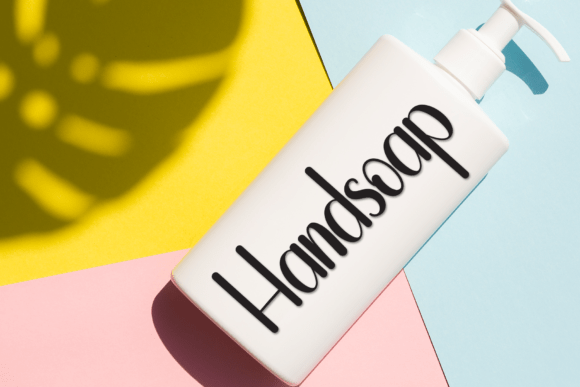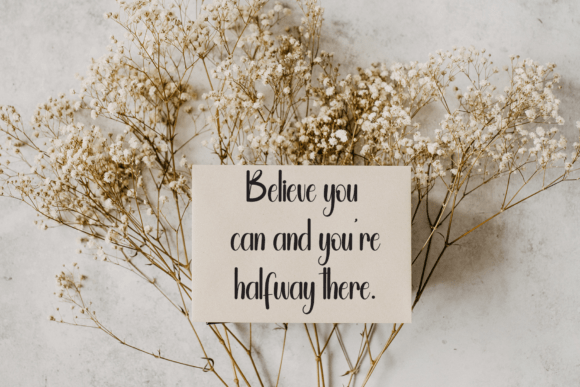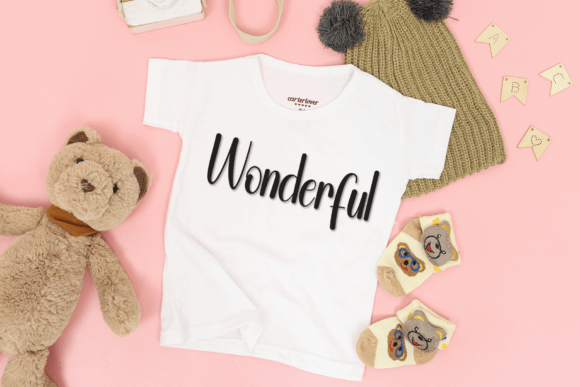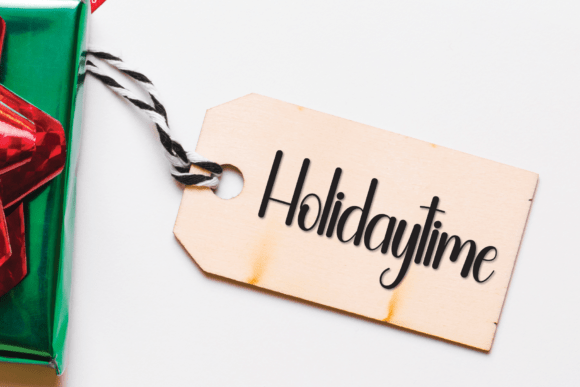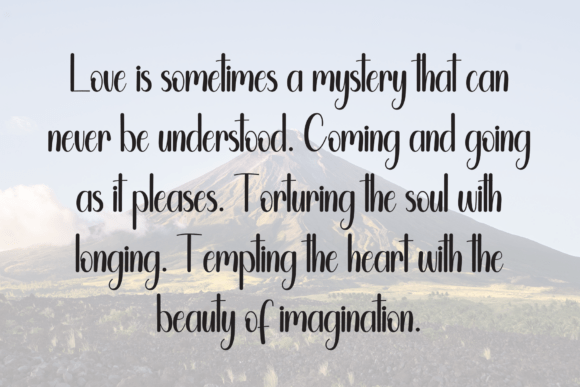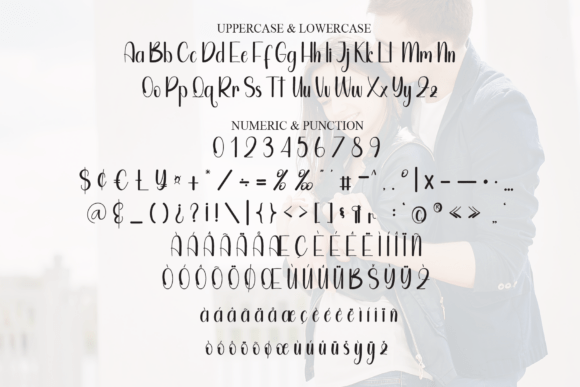
The Perfect Match for Your Next Design Project
You know that moment when you’re brainstorming ideas for a new design project and everything just clicks? The font, the color palette, the layout – it all comes together in perfect harmony. For designers, finding that perfect font can be the key to making a project truly shine. That’s where the Boyfriend Font comes in – a sweet and friendly handwritten font that’s sure to make your designs stand out.
With its natural and unique style, the Boyfriend Font is incredibly versatile and can be used for a wide range of designs, from invitations and greeting cards to social media graphics and blog posts. Its friendly feel makes it perfect for creating a personal and approachable tone, while its unique style ensures that your designs will never feel too generic or cookie-cutter.
Boyfriend Font Key Features
- Size: The font family includes various weights, ranging from Thin to Extra Bold, providing flexibility for different design needs.
- Unique Characteristics: The font features a unique, handwritten style with subtle imperfections, giving it a personal and romantic feel.
- Font Pairing: The font is designed to work well with other sans-serif and script fonts, allowing for easy pairing and customization in various design contexts.
Boyfriend Font Review
Boyfriend Font is a sans-serif typeface designed to mimic handwritten letters, giving it a friendly and approachable feel. I’ve worked with this font on various projects, and here’s my honest review.
- Unique handwriting-like aesthetic: Boyfriend Font’s casual feel makes it perfect for creating a relaxed, personal tone in branding and design.
- High legibility: Despite its cursive-like appearance, the font is surprisingly easy to read, even at smaller sizes.
- Versatility: It can be used for a wide range of design projects, from logos and headings to body text and social media graphics.
- Limited consistency: While the font’s casual feel is a strength, it can sometimes make it difficult to maintain consistency across different text sizes and styles.
- Lack of serif alternatives: For projects requiring a more formal or traditional look, Boyfriend Font might not be the best choice.
Overall, I think Boyfriend Font is a great addition to any designer’s toolkit. Its unique aesthetic and high legibility make it a great choice for many projects. However, it’s essential to be aware of its limitations and use it judiciously to achieve the desired effect.
The Boyfriend Font is ideal for creating playful and casual designs. Use it for social media graphics, blog posts, or any other content that needs a friendly tone. To get the most out of it, experiment with different font sizes and styles to create visual interest.